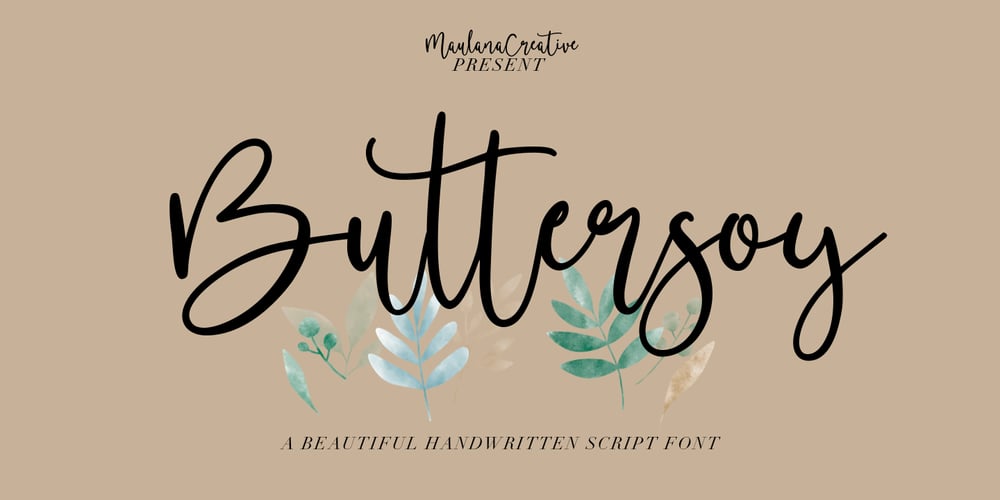
Buttersoy Font Family was designed by Gilang Maulana and published by Maulana Creative. Buttersoy contains 1 styles and family package options. Give your designs an authentic handcrafted feel. Buttersoy Beautiful Handwritten Script Font is perfectly suited to stationery, logos and much more.Maulana Creative